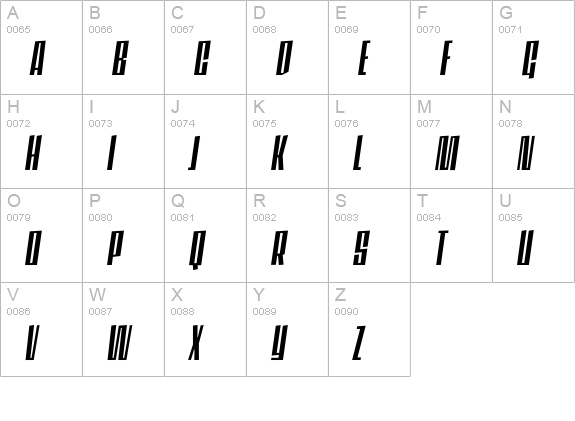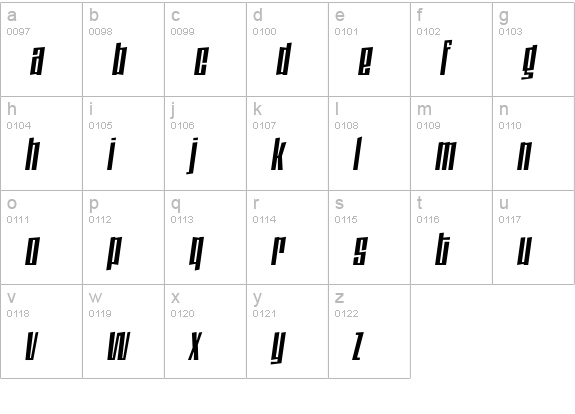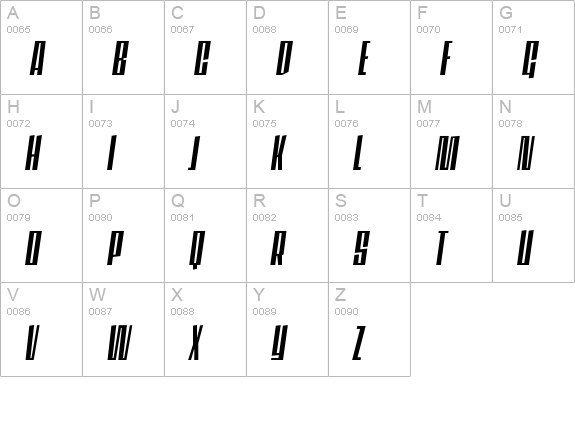
DaleysGothic-RegularItalic Font Details
DaleysGothic-RegularItalic is a captivating and bold font that showcases the perfect blend of gothic elements with a touch of elegance. This unique typeface is perfect for adding a touch of edge and sophistication to any design project. With its slanted and italicized appearance, DaleysGothic-RegularItalic exudes a sense of mystery and intrigue. Its elongated letterforms and sharp angles create a striking visual impact, making it ideal for titles, headlines, posters, and branding materials. This font is freely available to download at FontsMarket.com, allowing designers and enthusiasts alike to access its distinctive aesthetic without any cost. Whether you are working on personal projects or professional endeavors, DaleysGothic-RegularItalic offers a versatile and eye-catching solution. Embrace the captivating allure of DaleysGothic-RegularItalic and elevate your designs to new heights. Its unique style and freely available nature make it a must-have for anyone seeking to make a bold statement. Download it today and explore the endless possibilities that this font brings to your creative endeavors.